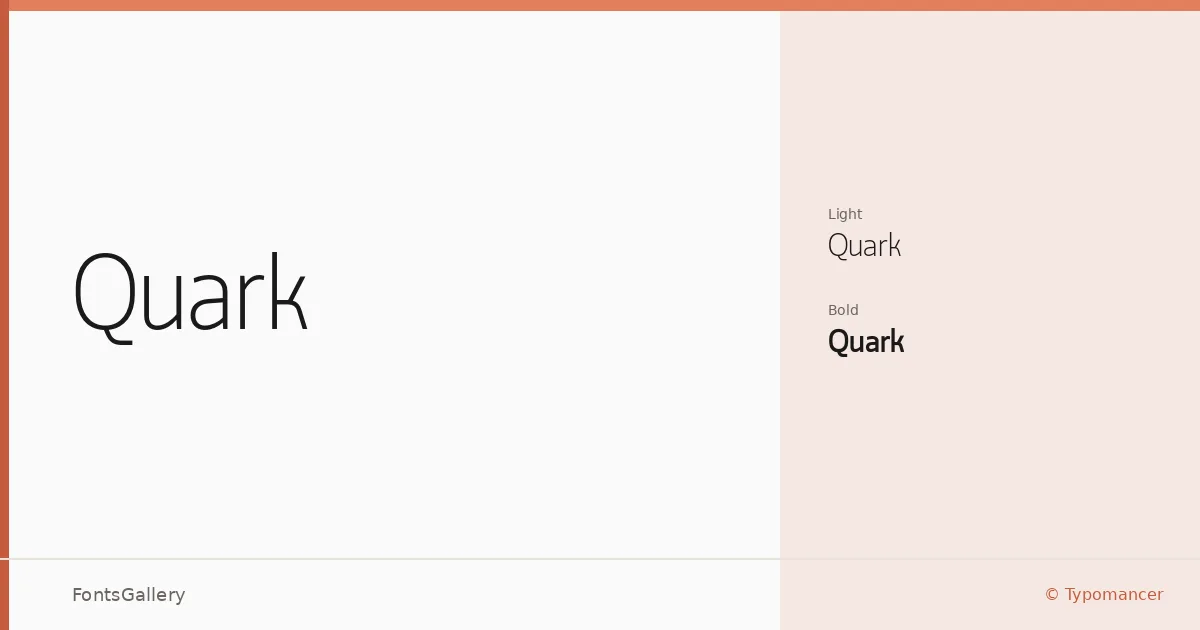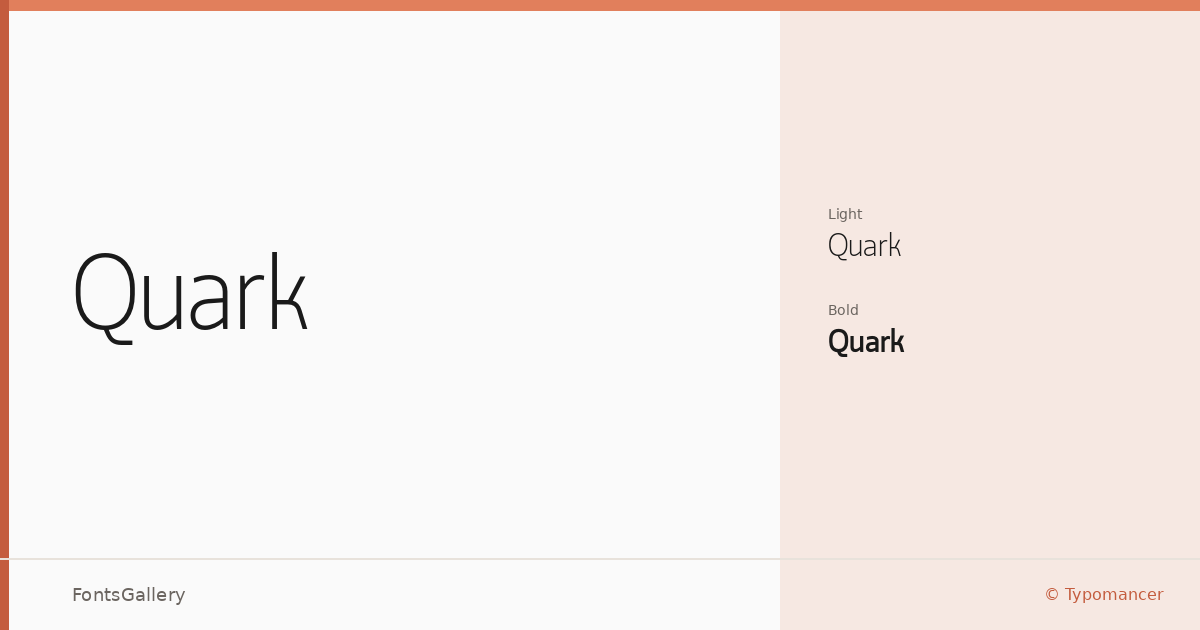
About Quark Font
There is a spare confidence to this sans serif — two weights, nothing wasted. Quark comes from Typomancer and arrives in OTF format as a Light and a Bold, a pairing that rewards designers who know exactly how much contrast they need and no more.
The family sits comfortably in the elegant and minimal end of the modern sans serif spectrum. Light carries a near-geometric delicacy that suits refined editorial work, while Bold lands with the kind of professional authority that anchors a layout without bullying it. Both cuts extend beyond Latin to cover Thai, which broadens the range of markets they can address. The OTF format means the letterforms travel cleanly across applications.
The weight range makes this a natural fit for branding systems, business cards, presentation decks, and magazine headers where a controlled, modern voice is required — it also holds up well as a website header face. When you need a companion, the family has been matched with Canela, Armelie, 321 Impact, ABC Arizona, and Kactigona, giving you options from editorial serifs to display-driven contrasts.